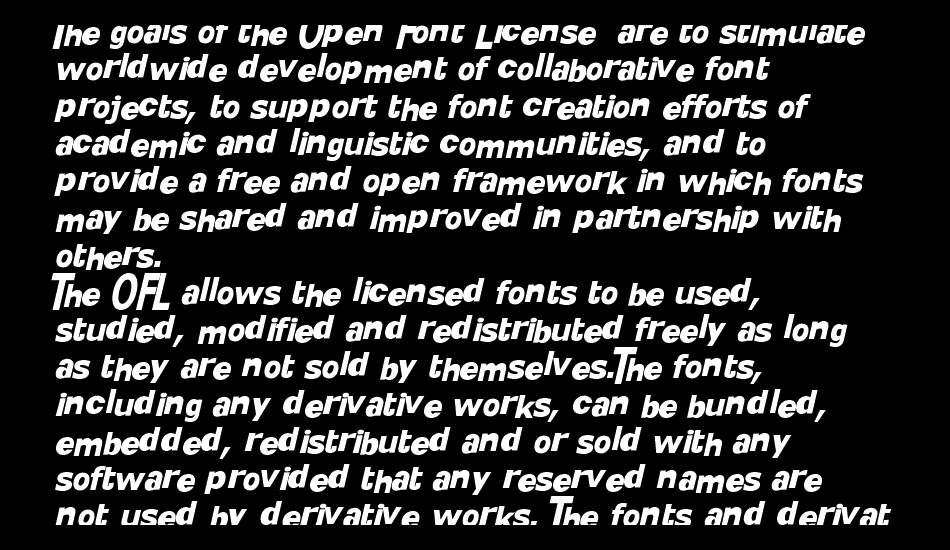
What Is The Kit Kat Font . Here, the letters of this logo resemble the kit kat font namely, kitty katt italic for “kit kat”part and modified gill sans regular for “nestle”. The color update removes the clutter from. It is a free font. Kit kat is a chocolate coated wafer biscuit bar confection produced worldwide by nestlé, except in the united states, where it is produced by hershey’s. The “kit kat” font was bold and dynamic, with elongated lines on the letters, especially the. The font is bold and angular, yet it looks very confident. Since 2002, the packages of the kit kats sold by hershey also feature the ellipse shape, like nestlé kit kats, yet the color scheme is slightly different, as well as the glyphs. The letters are large, clear, and white, contrasting with the chocolate. The new kitkat logo has a familiar look, yet the revised type makes the brand name pop. Kittykatt by sharkshock fonts is a font based on the kit kat logo. Kit kat is a chocolate coated wafer biscuit bar confection produced worldwide by nestlé, except in the united states, where it is produced by hershey’s. However, the current font which is used to design the logo by nestlé is modified by gill sans by eric gill. The original logo of kit kat was probably a custom work. This oval acted as a “frame,” highlighting the most important aspect—the brand name.
The letters are large, clear, and white, contrasting with the chocolate. Since 2002, the packages of the kit kats sold by hershey also feature the ellipse shape, like nestlé kit kats, yet the color scheme is slightly different, as well as the glyphs. It is a free font. The original logo of kit kat was probably a custom work. The new kitkat logo has a familiar look, yet the revised type makes the brand name pop. This oval acted as a “frame,” highlighting the most important aspect—the brand name. Kit kat is a chocolate coated wafer biscuit bar confection produced worldwide by nestlé, except in the united states, where it is produced by hershey’s. Here, the letters of this logo resemble the kit kat font namely, kitty katt italic for “kit kat”part and modified gill sans regular for “nestle”. The “kit kat” font was bold and dynamic, with elongated lines on the letters, especially the. Kit kat is a chocolate coated wafer biscuit bar confection produced worldwide by nestlé, except in the united states, where it is produced by hershey’s.
What Is The Kit Kat Font The “kit kat” font was bold and dynamic, with elongated lines on the letters, especially the. Kittykatt by sharkshock fonts is a font based on the kit kat logo. It is a free font. This oval acted as a “frame,” highlighting the most important aspect—the brand name. Here, the letters of this logo resemble the kit kat font namely, kitty katt italic for “kit kat”part and modified gill sans regular for “nestle”. Kit kat is a chocolate coated wafer biscuit bar confection produced worldwide by nestlé, except in the united states, where it is produced by hershey’s. Kit kat is a chocolate coated wafer biscuit bar confection produced worldwide by nestlé, except in the united states, where it is produced by hershey’s. The color update removes the clutter from. The font is bold and angular, yet it looks very confident. The “kit kat” font was bold and dynamic, with elongated lines on the letters, especially the. The original logo of kit kat was probably a custom work. The new kitkat logo has a familiar look, yet the revised type makes the brand name pop. However, the current font which is used to design the logo by nestlé is modified by gill sans by eric gill. Since 2002, the packages of the kit kats sold by hershey also feature the ellipse shape, like nestlé kit kats, yet the color scheme is slightly different, as well as the glyphs. The letters are large, clear, and white, contrasting with the chocolate.
Kit Kat Font Free Download What Is The Kit Kat Font The letters are large, clear, and white, contrasting with the chocolate. Kit kat is a chocolate coated wafer biscuit bar confection produced worldwide by nestlé, except in the united states, where it is produced by hershey’s. The new kitkat logo has a familiar look, yet the revised type makes the brand name pop. However, the current font which is used. What Is The Kit Kat Font.
Kit Kat Font Free Download What Is The Kit Kat Font The original logo of kit kat was probably a custom work. Kittykatt by sharkshock fonts is a font based on the kit kat logo. Here, the letters of this logo resemble the kit kat font namely, kitty katt italic for “kit kat”part and modified gill sans regular for “nestle”. The new kitkat logo has a familiar look, yet the revised. What Is The Kit Kat Font.
Kit Kat Logo and symbol, meaning, history, sign. What Is The Kit Kat Font Kit kat is a chocolate coated wafer biscuit bar confection produced worldwide by nestlé, except in the united states, where it is produced by hershey’s. Here, the letters of this logo resemble the kit kat font namely, kitty katt italic for “kit kat”part and modified gill sans regular for “nestle”. It is a free font. The new kitkat logo has. What Is The Kit Kat Font.
Kit Kat Font Free Download Fonts Bee What Is The Kit Kat Font Here, the letters of this logo resemble the kit kat font namely, kitty katt italic for “kit kat”part and modified gill sans regular for “nestle”. This oval acted as a “frame,” highlighting the most important aspect—the brand name. The letters are large, clear, and white, contrasting with the chocolate. The color update removes the clutter from. The new kitkat logo. What Is The Kit Kat Font.
Kitt Kat free font What Is The Kit Kat Font Kittykatt by sharkshock fonts is a font based on the kit kat logo. Kit kat is a chocolate coated wafer biscuit bar confection produced worldwide by nestlé, except in the united states, where it is produced by hershey’s. Here, the letters of this logo resemble the kit kat font namely, kitty katt italic for “kit kat”part and modified gill sans. What Is The Kit Kat Font.
How to make a KitKat Logo , Tutorial YouTube What Is The Kit Kat Font The letters are large, clear, and white, contrasting with the chocolate. The color update removes the clutter from. Kittykatt by sharkshock fonts is a font based on the kit kat logo. The font is bold and angular, yet it looks very confident. The new kitkat logo has a familiar look, yet the revised type makes the brand name pop. This. What Is The Kit Kat Font.
Kitt Kat free font What Is The Kit Kat Font The “kit kat” font was bold and dynamic, with elongated lines on the letters, especially the. The font is bold and angular, yet it looks very confident. The letters are large, clear, and white, contrasting with the chocolate. Kit kat is a chocolate coated wafer biscuit bar confection produced worldwide by nestlé, except in the united states, where it is. What Is The Kit Kat Font.
Kit Kat Font Download Famous Fonts vrogue.co What Is The Kit Kat Font Since 2002, the packages of the kit kats sold by hershey also feature the ellipse shape, like nestlé kit kats, yet the color scheme is slightly different, as well as the glyphs. The font is bold and angular, yet it looks very confident. The new kitkat logo has a familiar look, yet the revised type makes the brand name pop.. What Is The Kit Kat Font.
Kit Kat Font and Kit Kat Logo Kit kat, Kat, Kit What Is The Kit Kat Font Here, the letters of this logo resemble the kit kat font namely, kitty katt italic for “kit kat”part and modified gill sans regular for “nestle”. The font is bold and angular, yet it looks very confident. Kit kat is a chocolate coated wafer biscuit bar confection produced worldwide by nestlé, except in the united states, where it is produced by. What Is The Kit Kat Font.